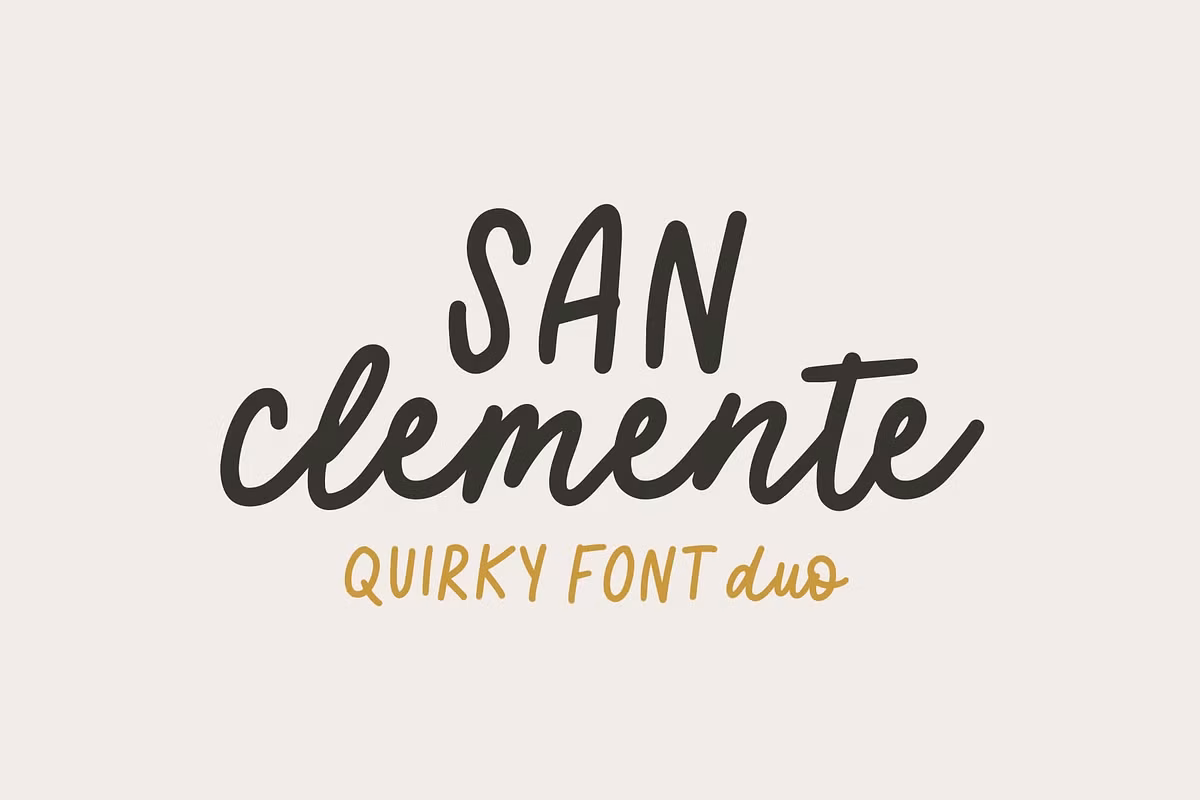
San Clemente Font Duo Free Download is a stylish and versatile font pair that combines elegant script with a clean, modern sans-serif. Perfect for a wide range of projects, including logos, invitations, branding, and websites, this font duo provides a balanced mix of sophistication and readability. The elegant script font adds a personal touch, while the sans-serif offers a professional and contemporary feel.